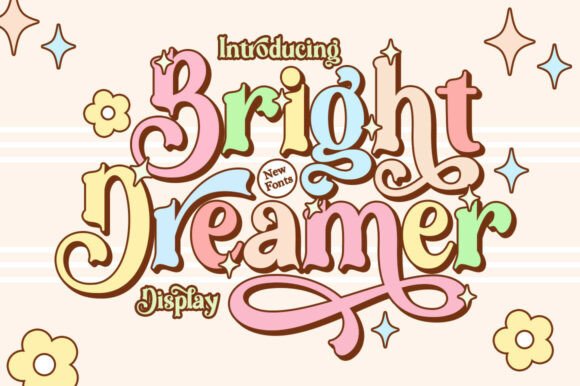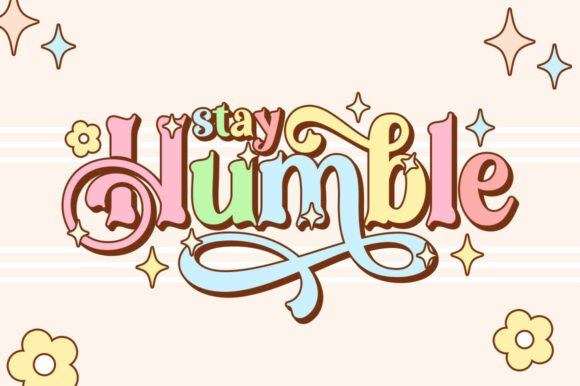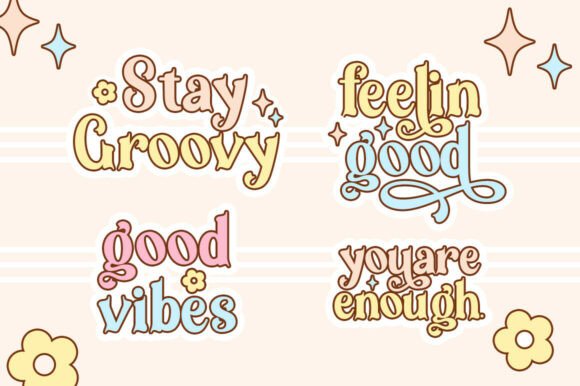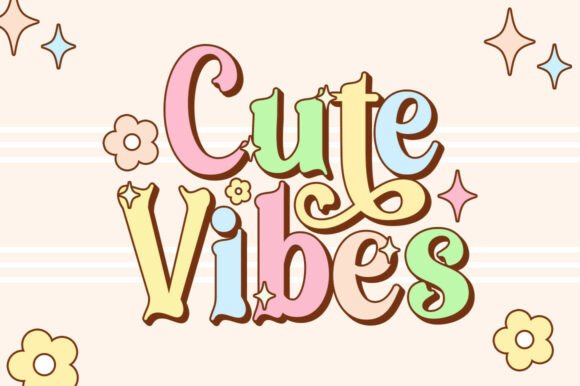
Bright Dreamer Font: Groovy Retro Display Font for Playful Branding
About the Bright Dreamer Font
Introducing the Bright Dreamer Font, a beautifully crafted typeface designed to elevate your creative projects. Bright Dreamer is cool, retro and fun display font. This font is PUA encoded which means you can access all of the glyphs and alternates with ease! It will look great on headlines, magazines, logos, branding and so much more!
Bright Dreamer’s retro-inspired design makes it ideal for projects needing a touch of vintage cool. It excels in headlines, logos, and short impactful text within posters or magazine layouts. Avoid using it for body copy or lengthy paragraphs; its playful character isn’t suited for extended reading.
The font’s personality is undeniably bold and playful, yet retains a degree of sophistication. Brands targeting a younger demographic, those with a retro aesthetic, or projects emphasizing fun and energy will find it particularly effective.
Consider pairing Bright Dreamer with a clean sans-serif like Open Sans for balance, or a more geometric sans-serif such as Montserrat for a modern twist. A classic serif like Garamond could also add a touch of unexpected elegance.
Bright Dreamer Font Usage Examples
Bright Dreamer Font Example